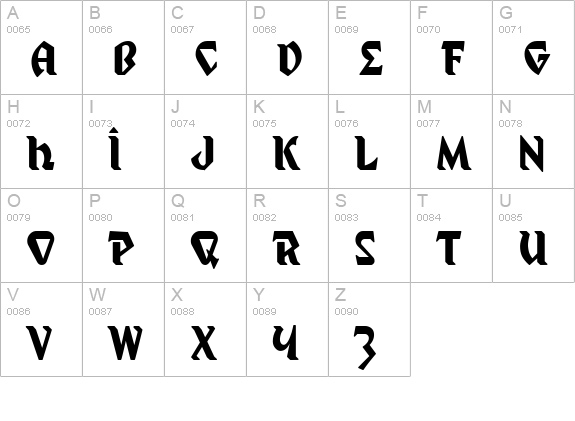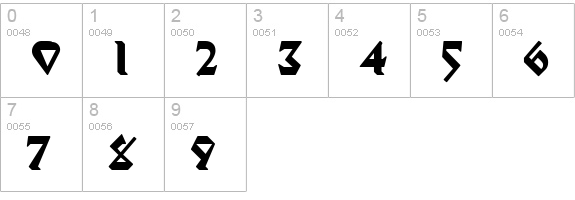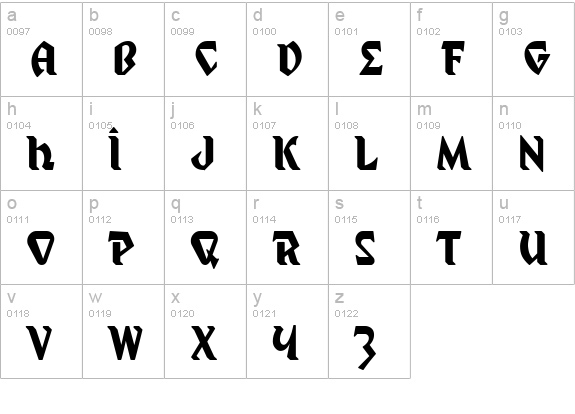
Introducing the captivating Mystic Prophet font - a mystical and enigmatic typeface that will transport your designs into the realm of the unknown. With its intricate details and otherworldly charm, this font exudes an aura of mystery and enchantment, making it perfect for projects that seek to evoke a sense of magic and wonder. Mystic Prophet is a versatile font that can be used for a wide range of design projects, from branding to editorial design, packaging, and more. Its unique style and elegant curves will add a touch of sophistication and intrigue to any design. The best part? Mystic Prophet is available for free download at FontsMarket.com, allowing you to unleash your creativity without any constraints. Don't miss out on the opportunity to add this enchanting font to your collection and bring a touch of mysticism to your next project.